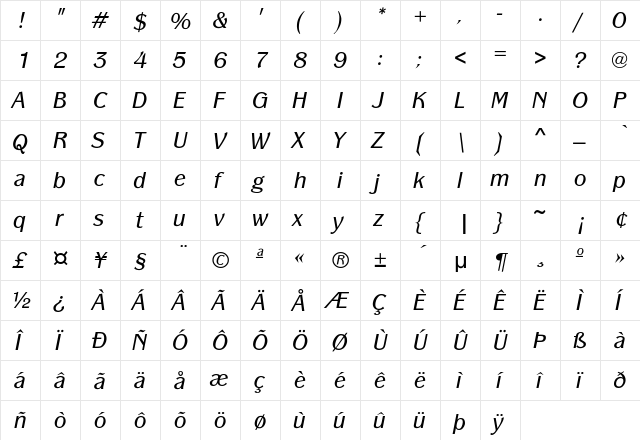
Panache-BookIta Regular Font Preview
Panache-BookIta Regular
Design Context for Panache-BookIta Typeface
Panache-BookIta is a composed and adaptable typeface that performs quietly and consistently across a wide range of design contexts.
Pro Tip: Use Panache-BookIta in both headline and body roles to test its range before committing to a single application.